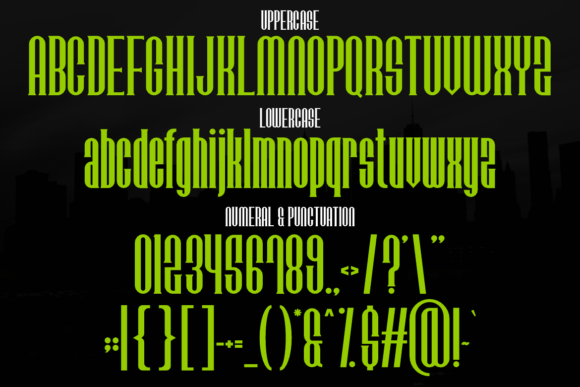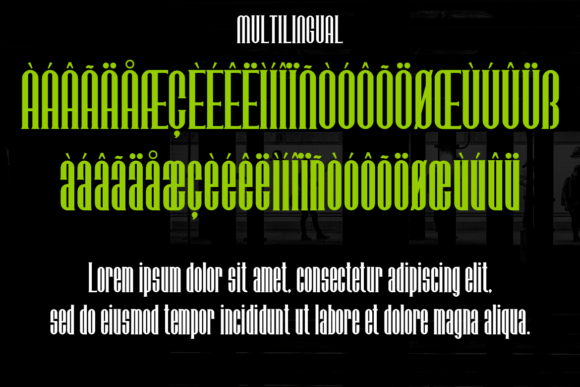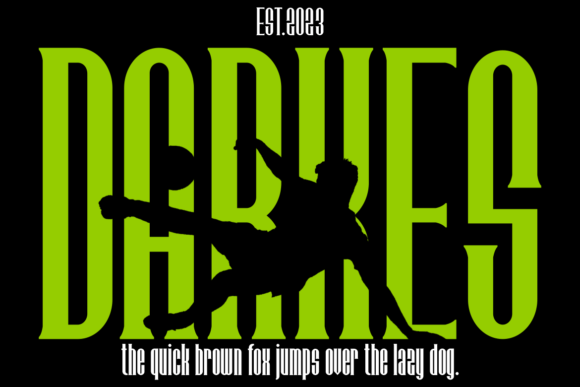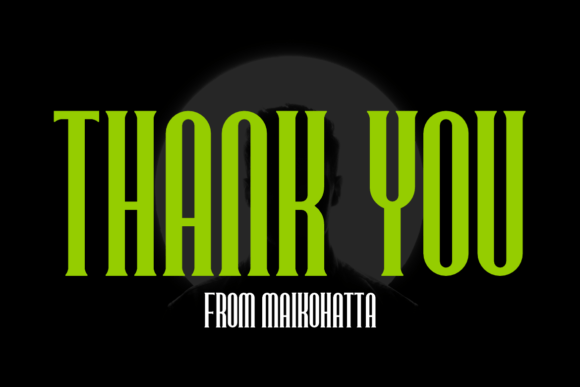
Introducing DARKES – The Ultimate Condensed Serif Font for Modern Design
In the world of digital design, fonts play a pivotal role in shaping the visual identity of a brand. A well-crafted font can elevate a brand’s image, making it more recognizable and memorable. Today, we’re excited to introduce DARKES – a bold and authentic condensed serif font designed to meet the needs of modern designers and crafters. Whether you’re working on a logo, template design, esport, or any other branding project, DARKES is the perfect choice to make your designs stand out.
What Makes DARKES Unique?
DARKES is not just another font; it’s a game-changer in the realm of typography. Its condensed serif design offers a unique blend of modernity and classic elegance, making it versatile enough to be used in a wide range of contexts. Here are some key features that set DARKES apart:
- Bold and Authentic: DARKES boasts a bold and authentic look that commands attention. Its strong lines and condensed structure make it perfect for headlines, titles, and any design element that needs to stand out.
- Versatile: Despite its bold appearance, DARKES is surprisingly versatile. It can be used in various design projects, from corporate branding to creative crafts, without losing its impact.
- Modern Aesthetic: With its sleek lines and contemporary design, DARKES brings a modern aesthetic to your projects. It’s ideal for designers looking to infuse their work with a fresh and current feel.
Applications of DARKES
The versatility of DARKES makes it suitable for a myriad of applications. Here are some of the areas where DARKES can make a significant impact:
- Logo Design: A logo is the cornerstone of a brand’s identity. DARKES, with its bold and memorable appearance, is perfect for creating logos that leave a lasting impression.
- Template Design: Whether you’re designing templates for websites, presentations, or social media, DARKES can add a professional and sleek touch to your creations.
- Esports: The esports industry requires designs that are not only visually appealing but also convey energy and dynamism. DARKES, with its bold and modern aesthetic, is well-suited for esports branding and marketing materials.
- Branding Projects: Beyond logos, DARKES can be used across various branding projects, including packaging, advertising, and more, to create a cohesive and impactful visual identity.
Why Choose DARKES?
With so many fonts available, why should DARKES be your go-to choice? Here are a few compelling reasons:
- Uniqueness: DARKES offers a unique blend of boldness and elegance, making your designs instantly recognizable.
- Readability: Despite its condensed structure, DARKES maintains high readability, ensuring your message is conveyed clearly and effectively.
- Adaptability: DARKES can be used across various platforms and design applications, making it a versatile addition to your font library.
DARKES – our new condensed serif font – is set to revolutionize the way you approach design. Its bold, authentic, and modern aesthetic makes it the perfect tool for designers and crafters looking to create impactful and memorable designs. Whether you’re working on a branding project, designing a logo, or crafting marketing materials for esports, DARKES is the ideal choice. Experience the power of DARKES and take your designs to the next level.